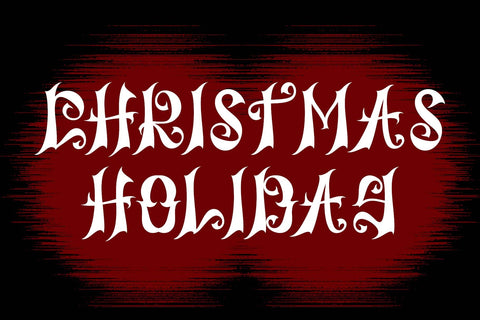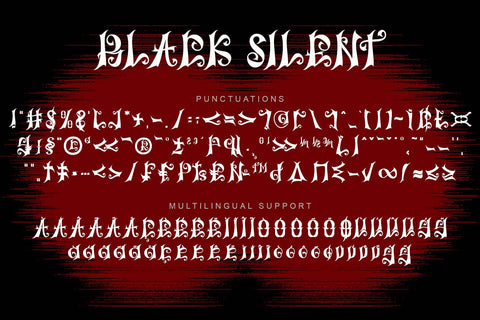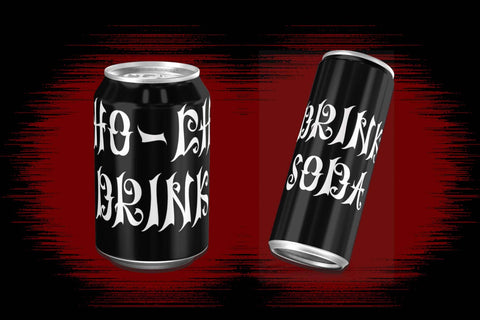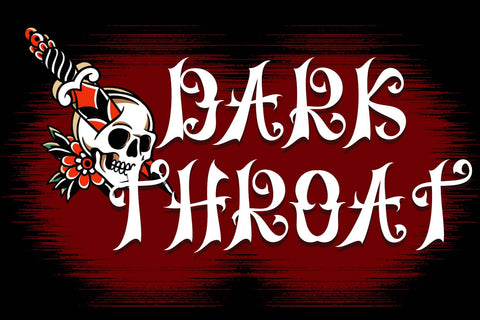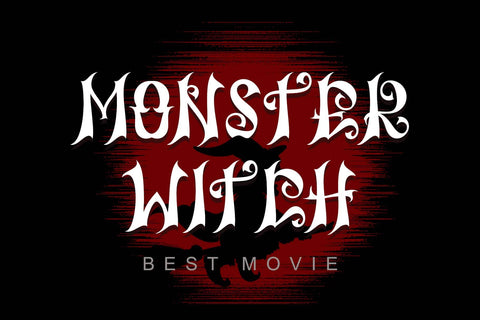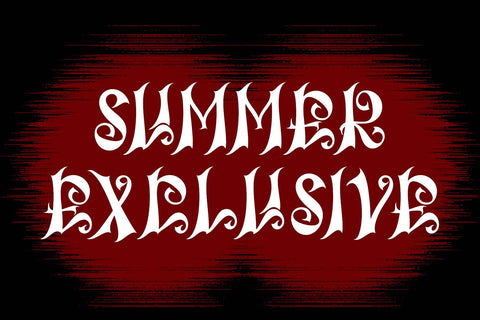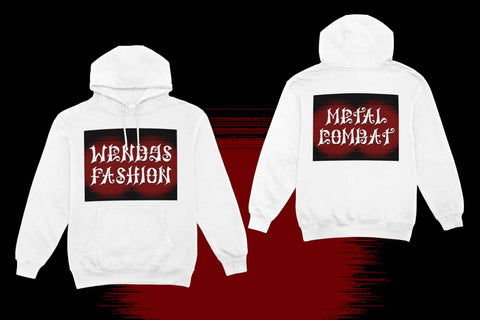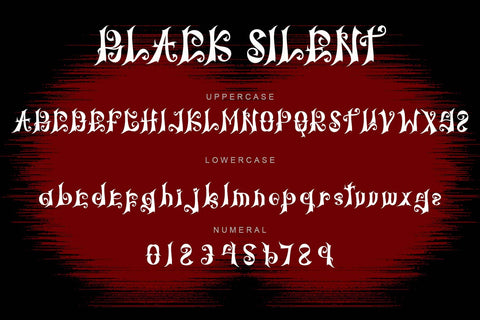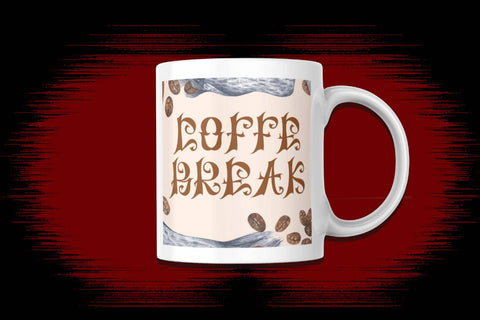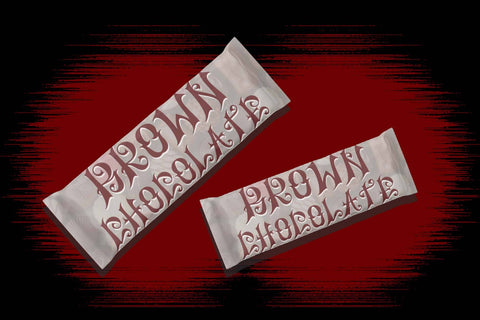
Black Silent
"Black Silent" is a unique and elegant blackletter font. This font is made with professional hands and full of care. Equipped with uppercase, lowercase, numerals, punctuations and multilingual support. Very suitable for business branding, movie titles, music concerts, halloween, summer, christmas and others.